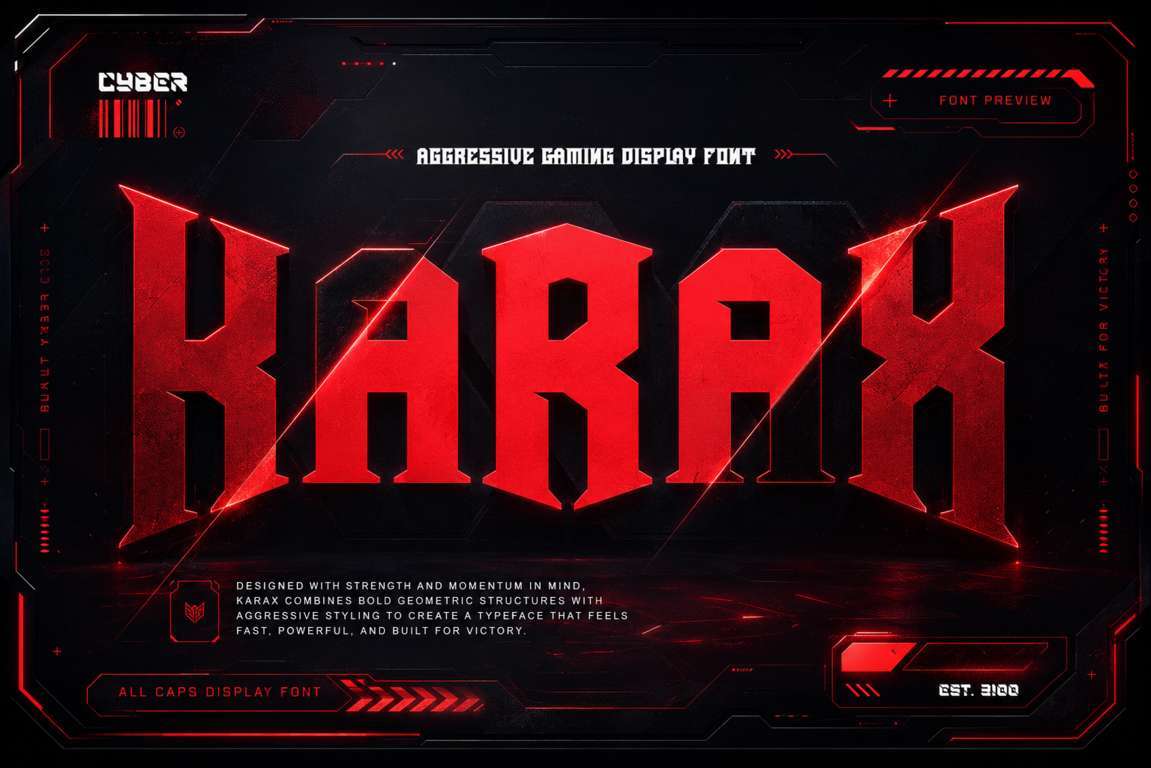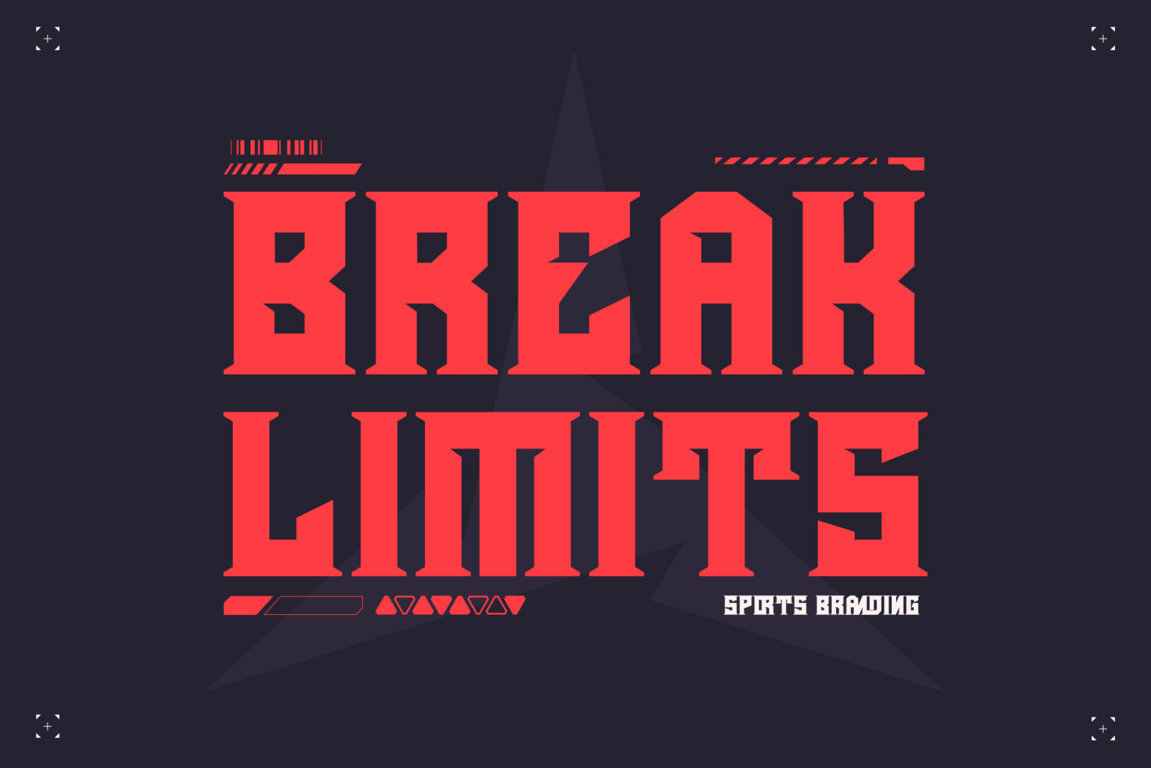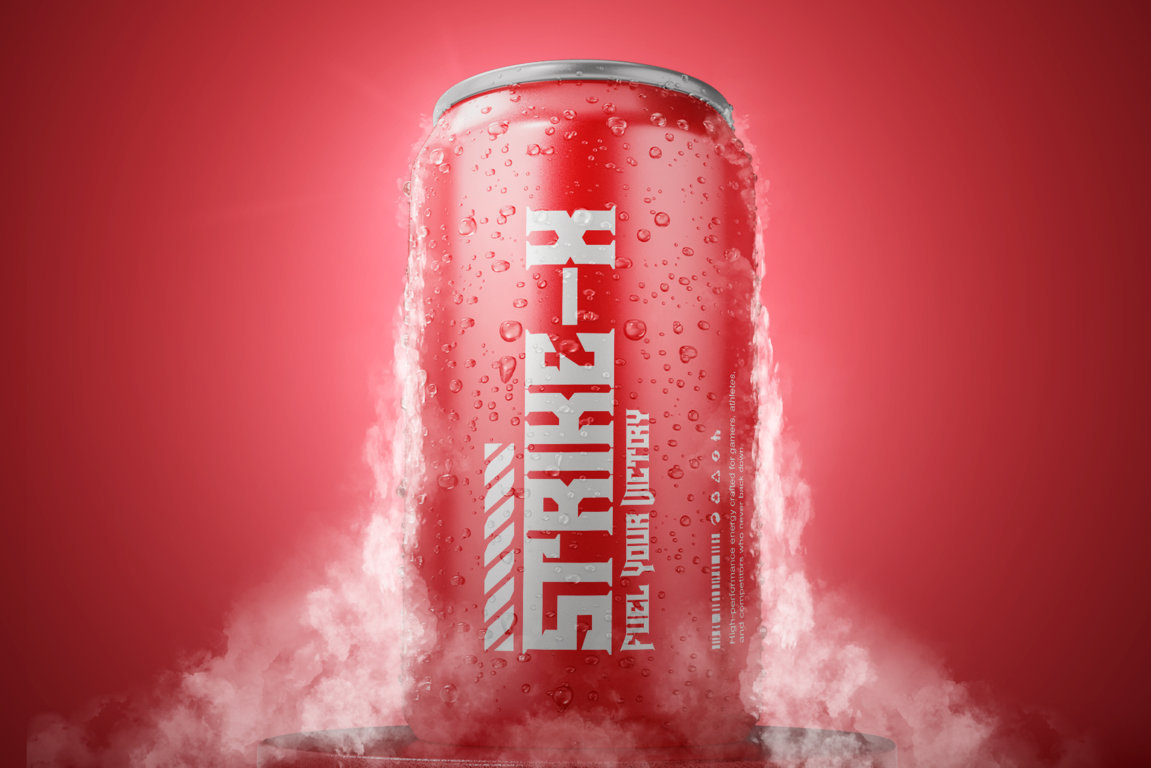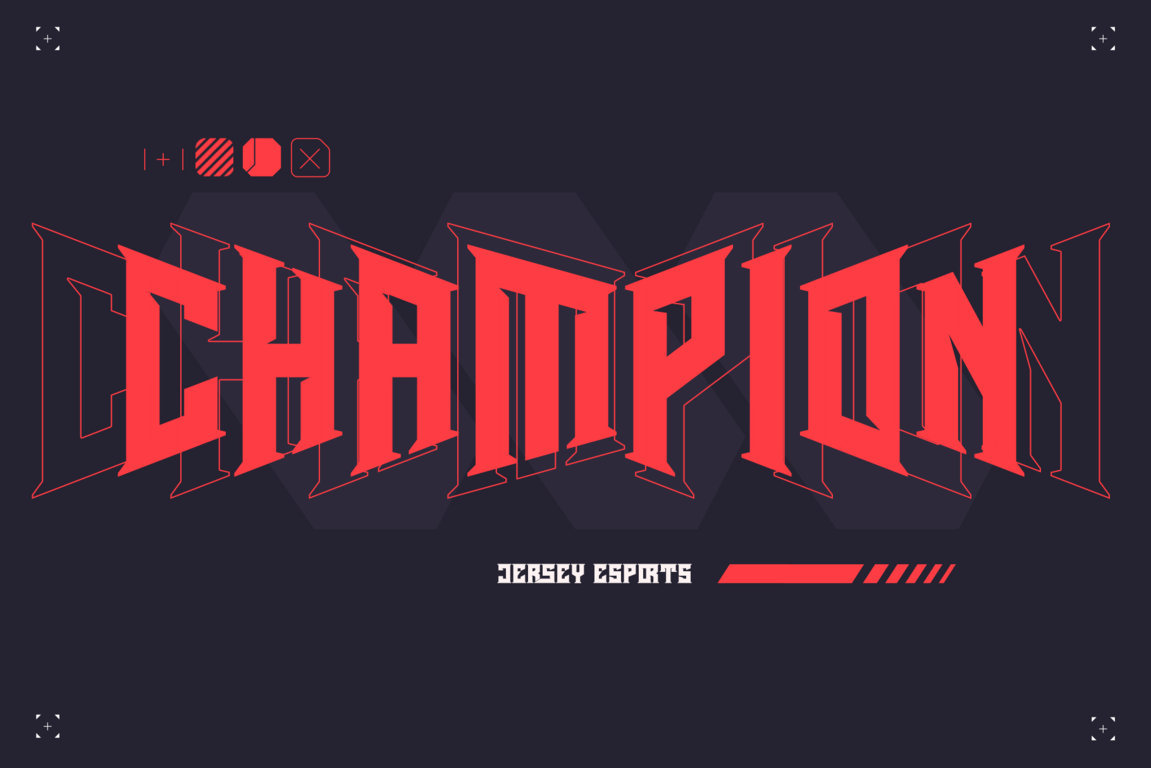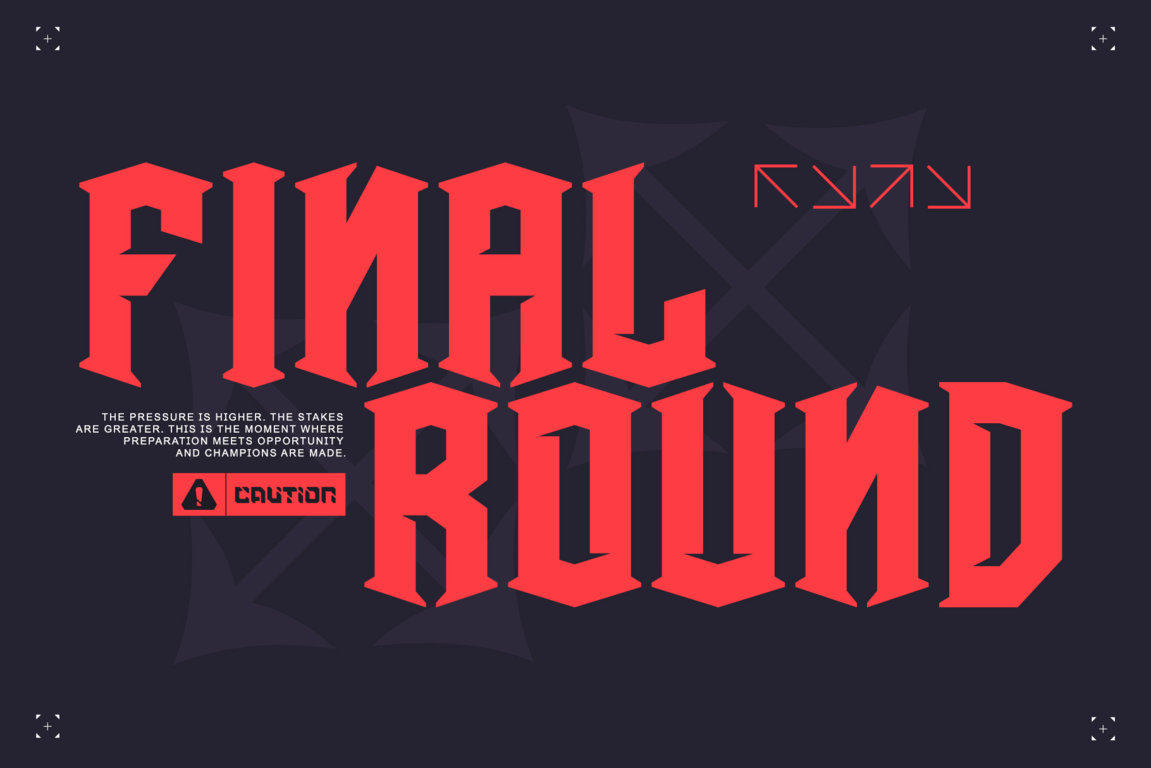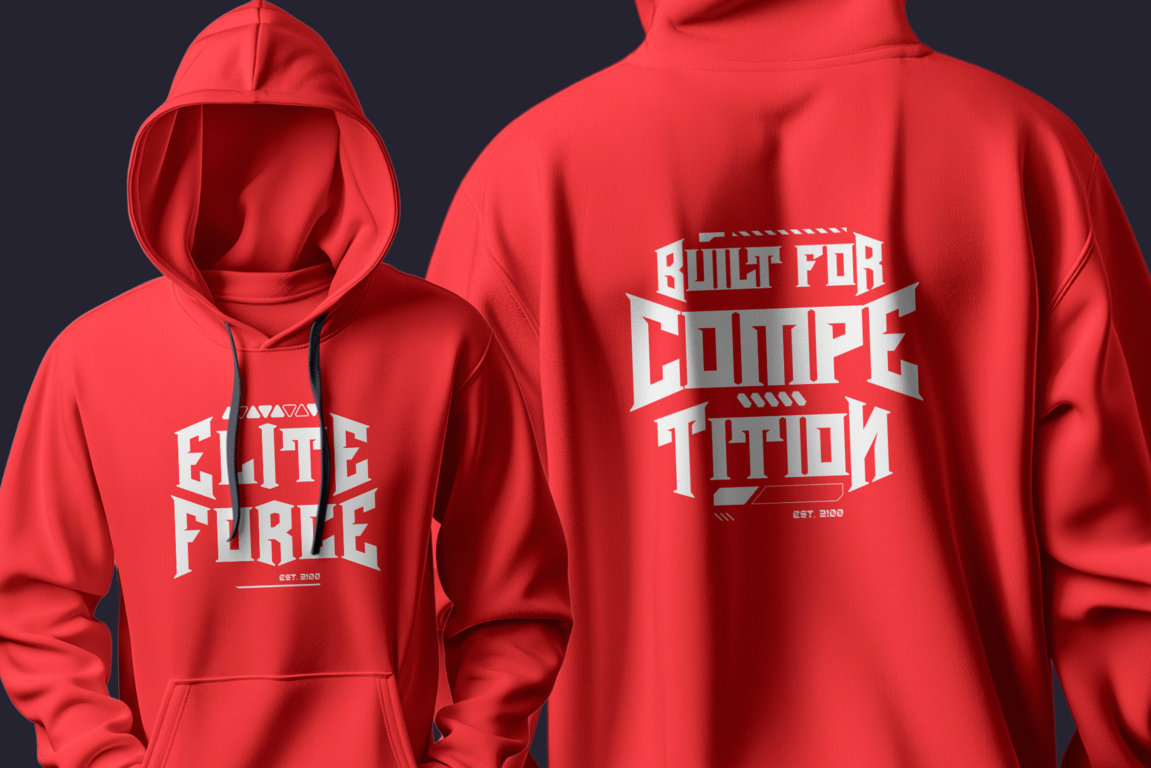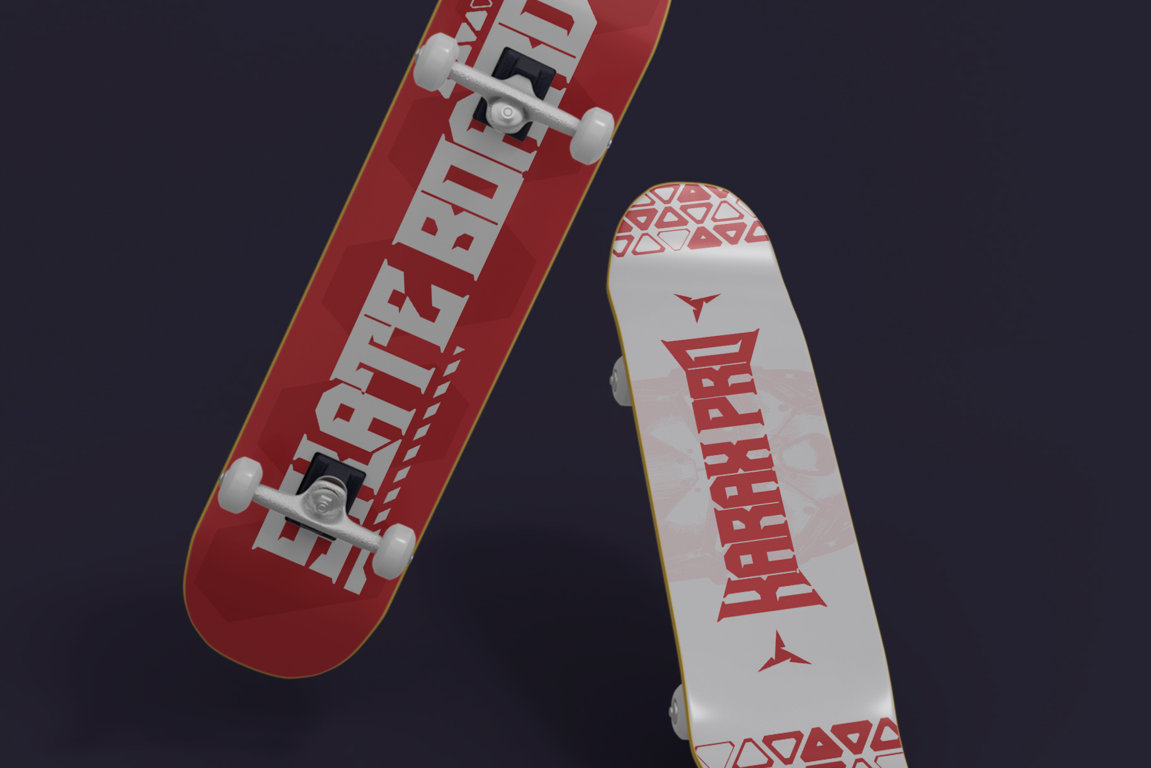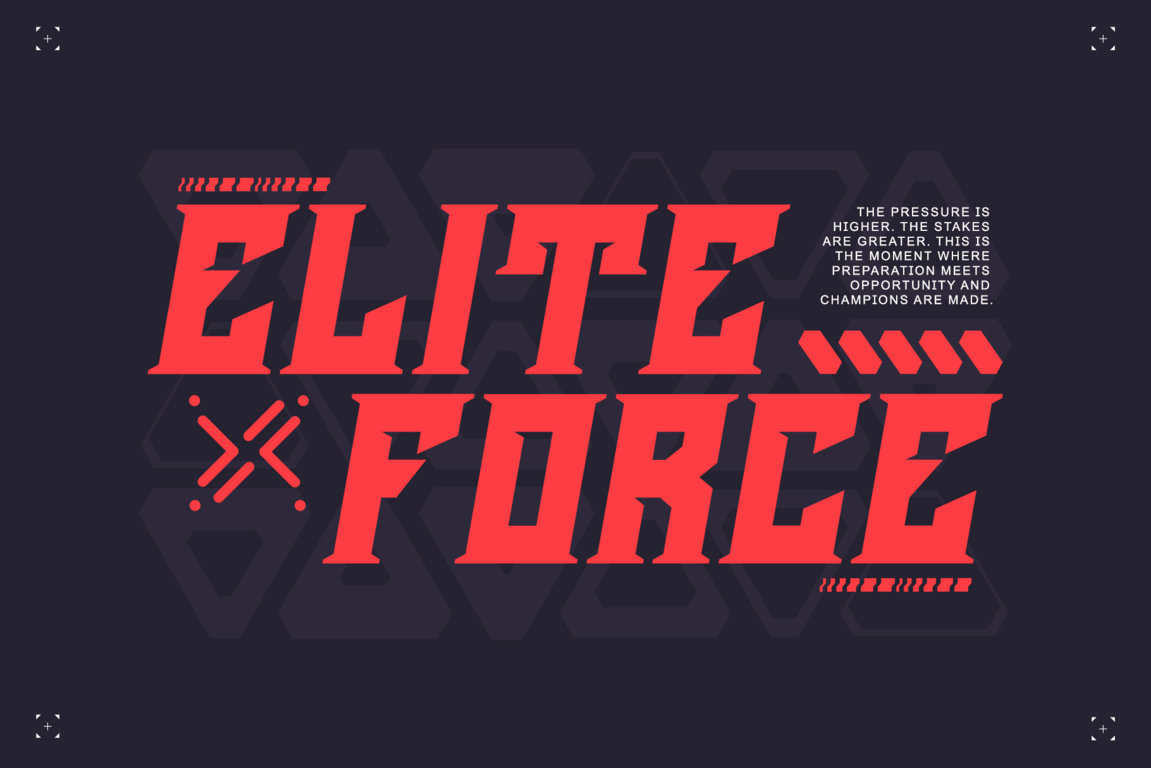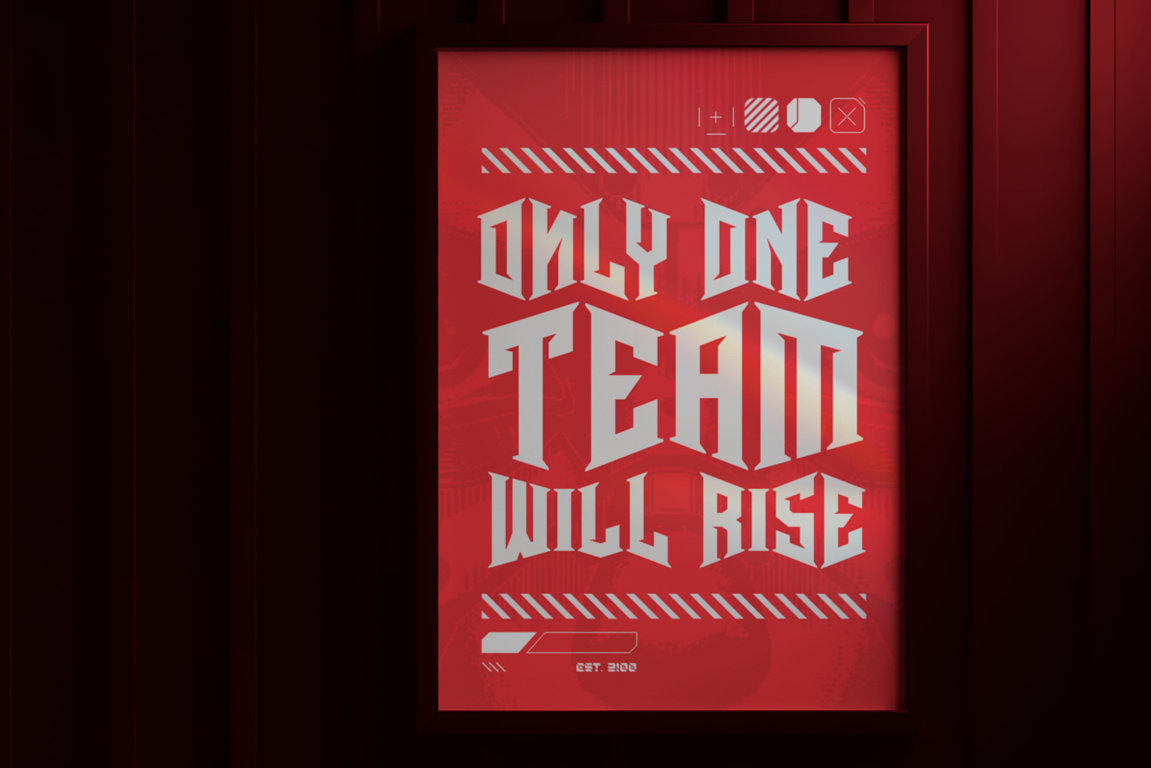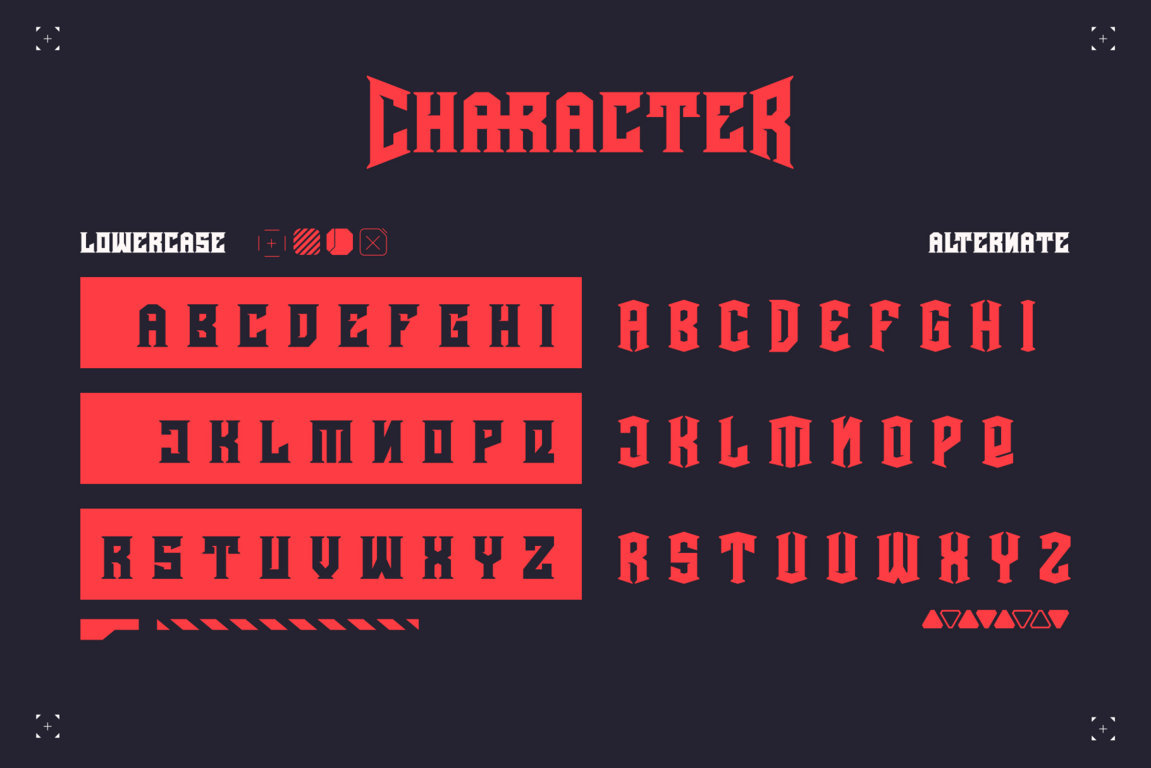
Harax is a bold and aggressive gaming display font designed to bring power, speed, and high-impact energy to your creative projects. Built with sharp geometric letterforms, strong proportions, and distinctive angular details, Harax delivers a competitive visual style that instantly commands attention.
Inspired by esports, gaming culture, cyber technology, extreme sports, streetwear, and futuristic branding, this powerful display typeface is perfect for projects that need a strong, modern, and fearless identity.
Harax works especially well for gaming logos, esports team branding, tournament graphics, game titles, sportswear, skateboard designs, YouTube thumbnails, posters, merchandise, product packaging, automotive graphics, technology campaigns, album covers, and action-inspired promotional designs.
The font includes uppercase and lowercase characters, alternate letterforms, decorative swashes, creative ligatures, numerals, punctuation, symbols, accented characters, and multilingual support. Its stylistic variations give you more freedom to create custom logos, unique headlines, and memorable branding while maintaining a consistent visual identity.
Whether you are building a competitive gaming brand, designing an esports jersey, creating futuristic packaging, or producing a powerful promotional poster, Harax gives your typography a bold and professional presence.
Perfect For
- Gaming and esports logos
- Game titles and tournament branding
- YouTube thumbnails and streaming graphics
- Sportswear, jerseys, and merchandise
- Skateboard and streetwear designs
- Posters, banners, and advertising
- Energy drink and product packaging
- Automotive and technology branding
- Album covers and music promotions
- Movie titles and action graphics
- Social media campaigns
- Bold editorial headlines
Font Features
- Uppercase and lowercase letters
- Alternate characters
- Decorative swashes
- Creative ligatures
- Numerals and punctuation
- Symbols and accented characters
- Multilingual support
- OpenType features
- Strong readability at display sizes
Multilingual Support
Harax supports a wide range of Latin-based languages, including English, Indonesian, Spanish, French, German, Italian, Portuguese, Dutch, Danish, Norwegian, Swedish, Finnish, Icelandic, Irish, Polish, Czech, Slovak, Romanian, Hungarian, Croatian, Slovenian, Turkish, Estonian, Latvian, Lithuanian, and other supported languages that use Latin characters.
Create powerful logos, fearless headlines, and high-energy visual identities with Harax.
Harax — built for powerful brands, competitive ideas, and designs made to win.